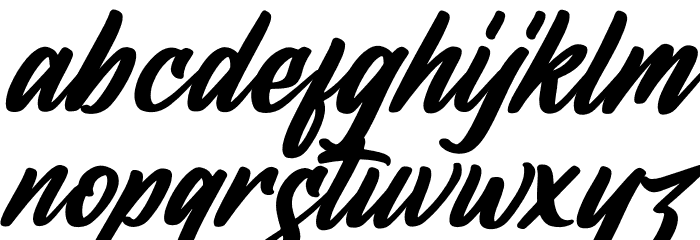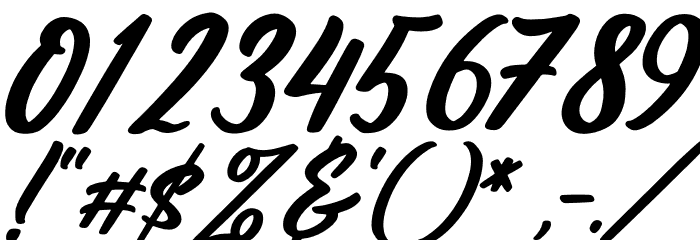
Hologram Kalenda Italic Font
This font features a dynamic and flowing script style, characterized by its elegant and cursive letterforms. The uppercase and lowercase letters are designed with a consistent slant, giving it a sense of motion and fluidity. The strokes are bold and confident, with a medium to high contrast between thick and thin lines, enhancing its readability while maintaining a stylish appearance. The numerals and special characters are crafted to match the overall aesthetic, ensuring a cohesive look across all text elements. This font exudes a sense of sophistication and creativity, making it suitable for a variety of design applications.
A bold, italic script font with elegant, flowing letterforms.
- Font: Hologram Kalenda Italic
- Proposed Projects: Ideal for branding, invitations, greeting cards, and artistic projects that require a touch of elegance and flair.
- Category: Script
- Use Case: Logos, Headlines, Invitations